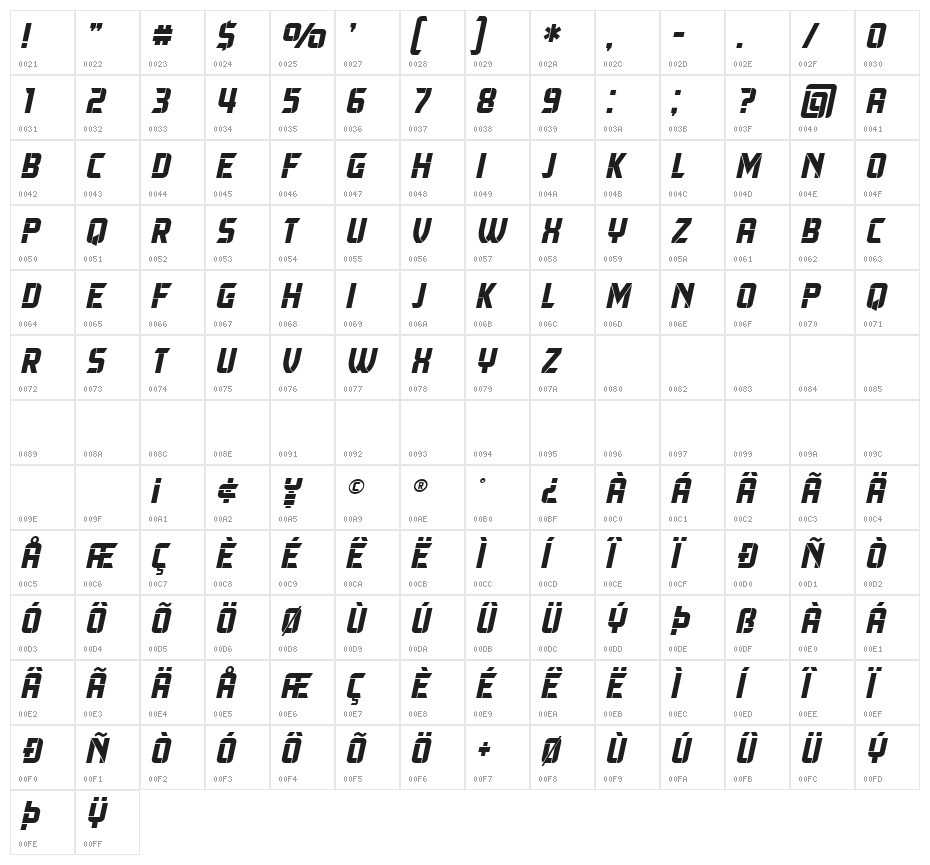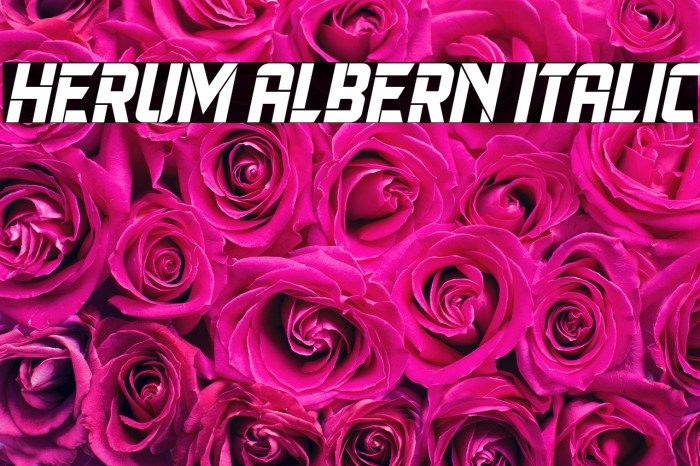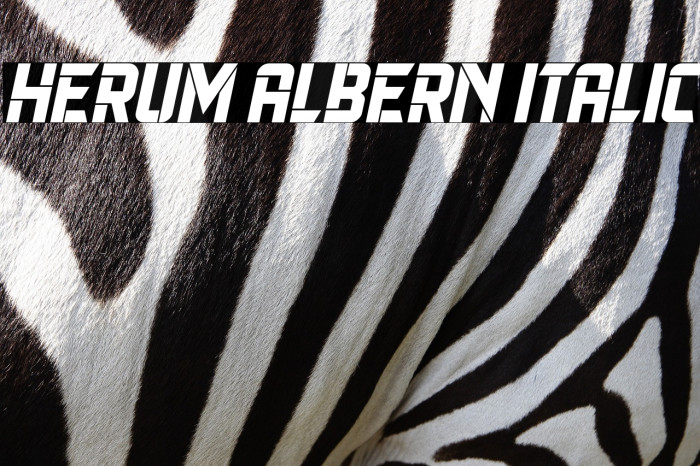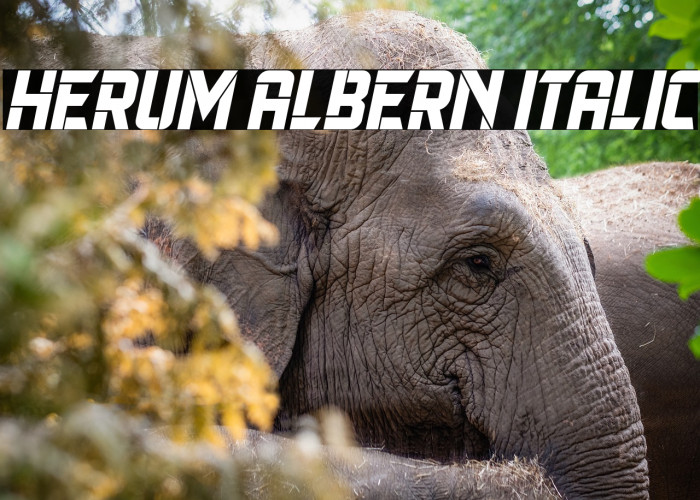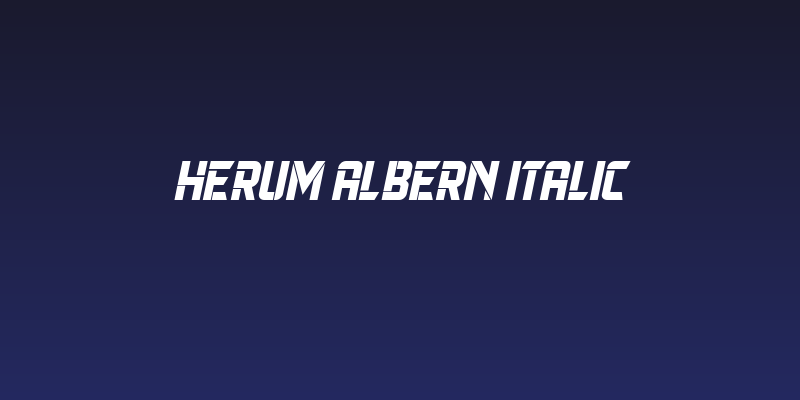
Herum Albern Italic Font
Herum Albern Italic Description
This font features a bold and dynamic design with a distinct italic slant, giving it a sense of motion and energy. The characters are constructed with sharp, angular lines and a geometric style, creating a modern and futuristic appearance. The uppercase and lowercase letters maintain a consistent style, with the uppercase being particularly striking due to their boldness. The numerals and special characters follow the same design principles, ensuring uniformity across all glyphs. The font's strong visual impact makes it suitable for attention-grabbing headlines and display purposes.
| Proposed Projects | Ideal for sports branding, tech-related designs, futuristic themes, and dynamic posters. |